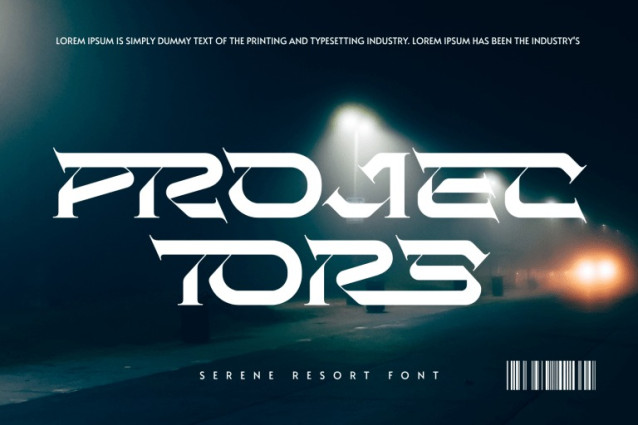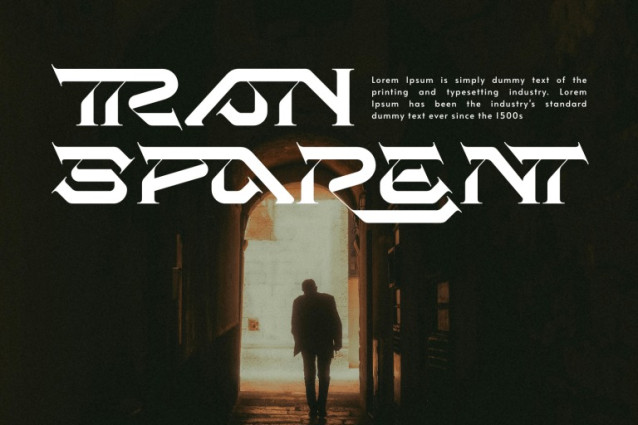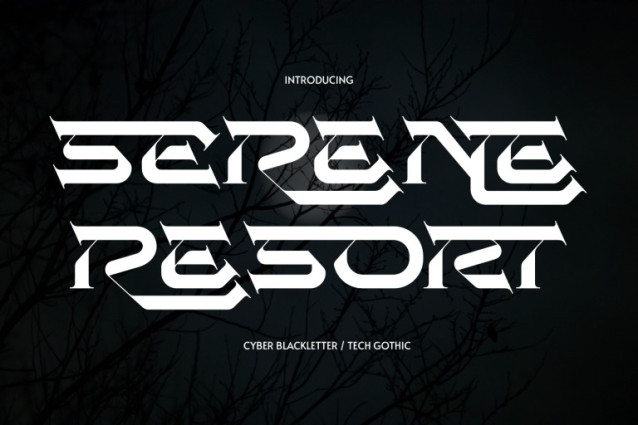
Serene Resort Font
Serene Resort – Futuristic Font is a futuristic angular display font designed with sharp cuts, extended terminals, and a strong techno-inspired structure. Its bold letterforms combine a modern sci-fi aesthetic with subtle serif-like details, creating a powerful and distinctive visual identity. With its wide proportions, precise angles, and dramatic character shapes, Serene Resort is perfect for gaming titles, sci-fi posters, cyberpunk branding, fantasy logos, album covers, and cinematic visual projects.
🔤Features:
Uppercase & Lowercase Letters
Around 100 Special Ligatures & Alternates
Accented Characters for multilingual support
🔤About 100 ligatures combined with Stylistic Alternates Font: